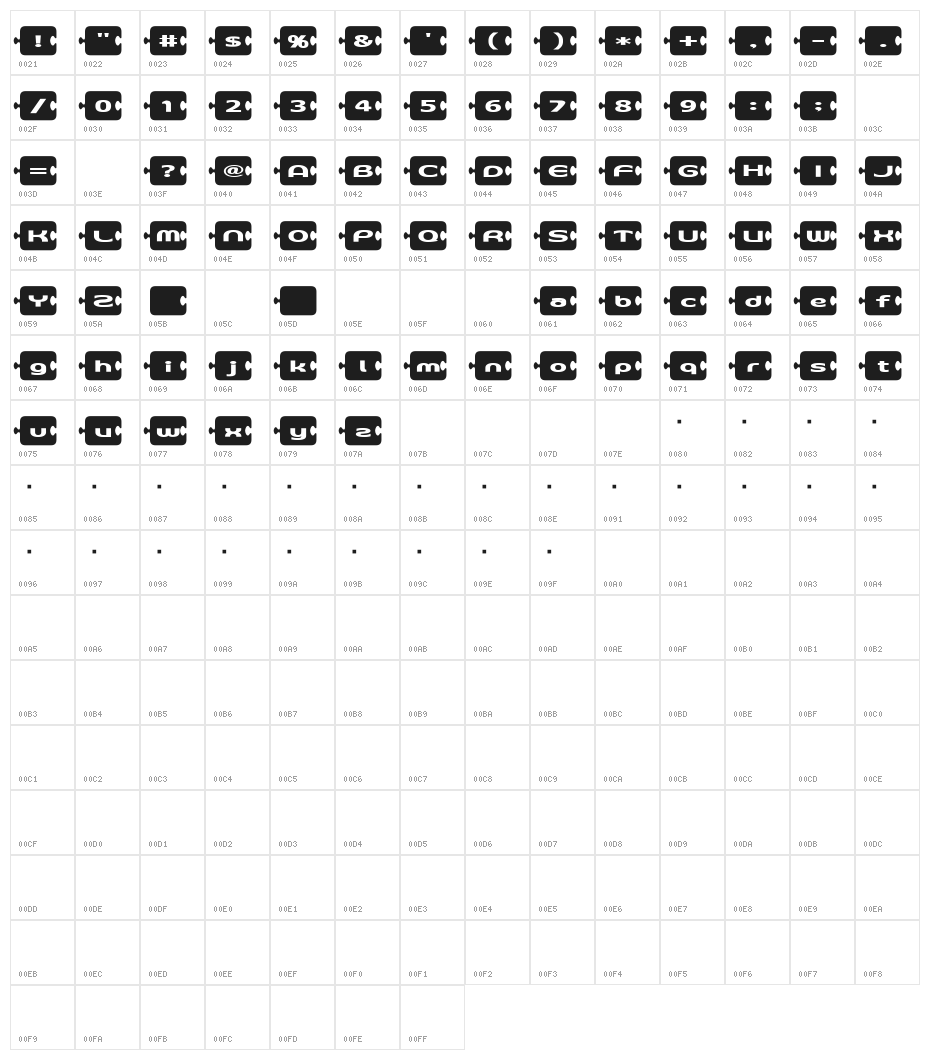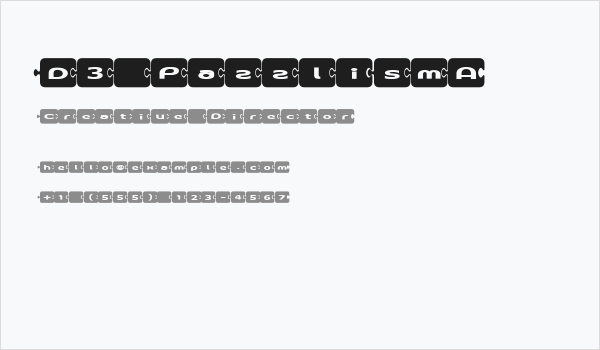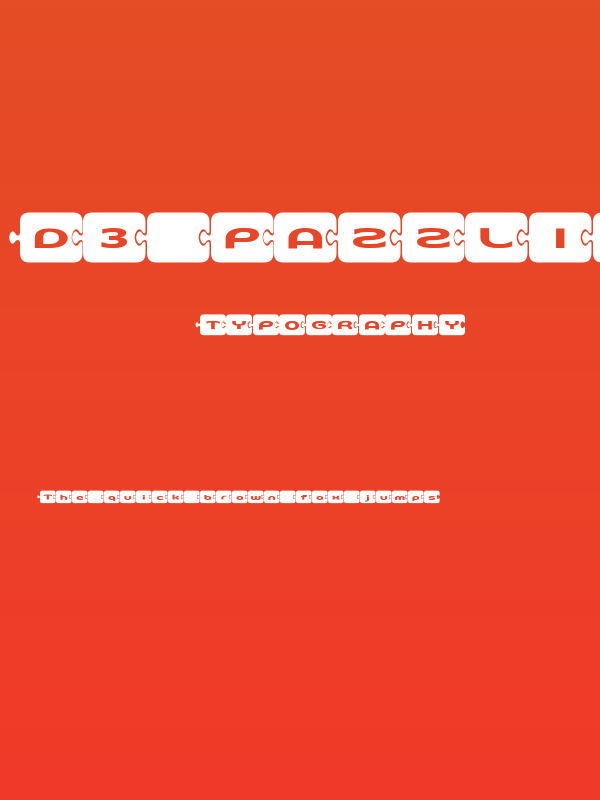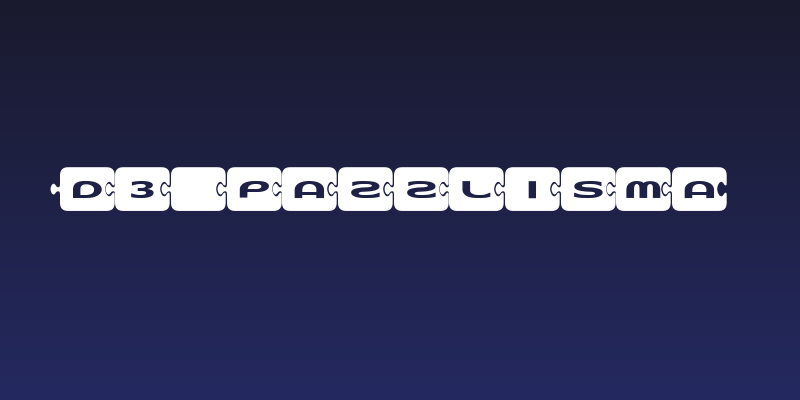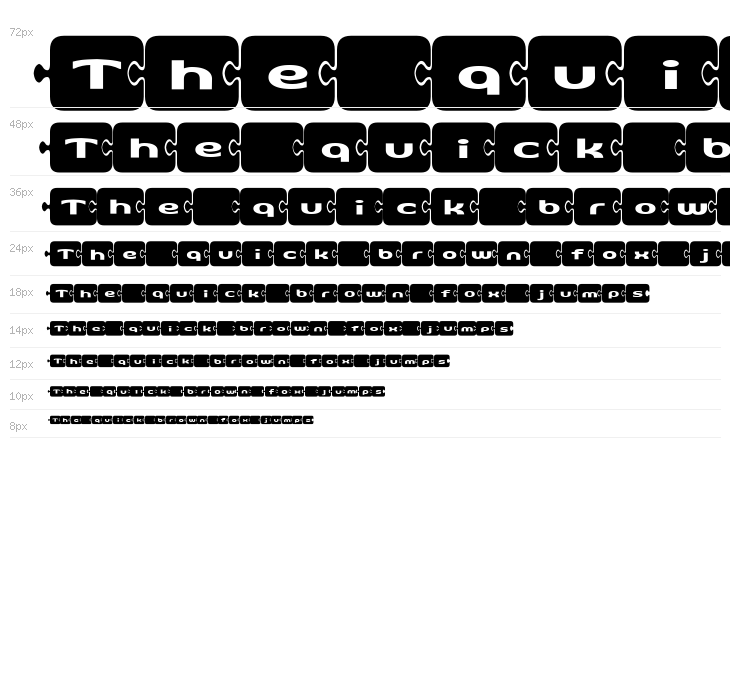
D3 PazzlismA Font
D3 PazzlismA Description
This font features a unique design where each character is enclosed within a puzzle piece shape, creating a playful and interconnected appearance. The letters are bold and blocky, with a consistent thickness throughout, giving them a strong presence. The puzzle piece outlines add a decorative element that makes the font stand out, while the characters themselves maintain a clear and legible form. This style is particularly eye-catching and would be suitable for creative and informal projects. The uniformity in the design ensures that the text remains cohesive, even with the intricate puzzle motif.
| Overall Style | Playful, Decorative |
| Proposed Projects | Ideal for children's books, educational materials, playful branding, and puzzle-themed events. |